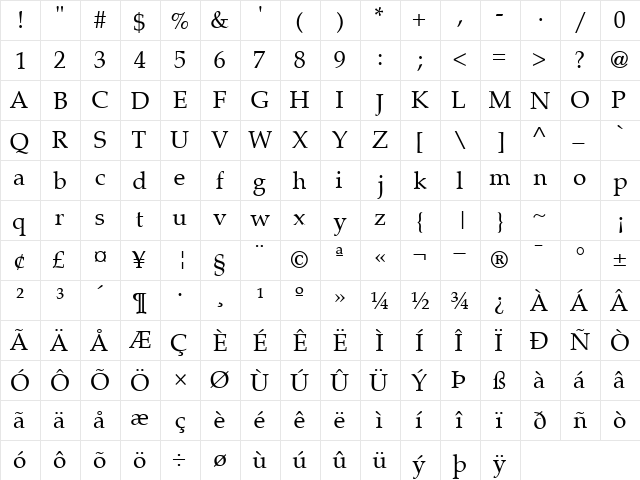
CriteriaSSK Regular
Design Context for CriteriaSSK Typeface
CriteriaSSK offers clean, dependable letterforms without strong stylistic allegiance, making it a practical choice for designers who need flexibility.